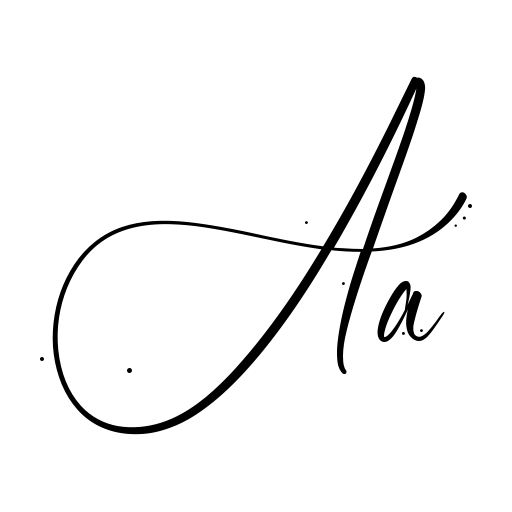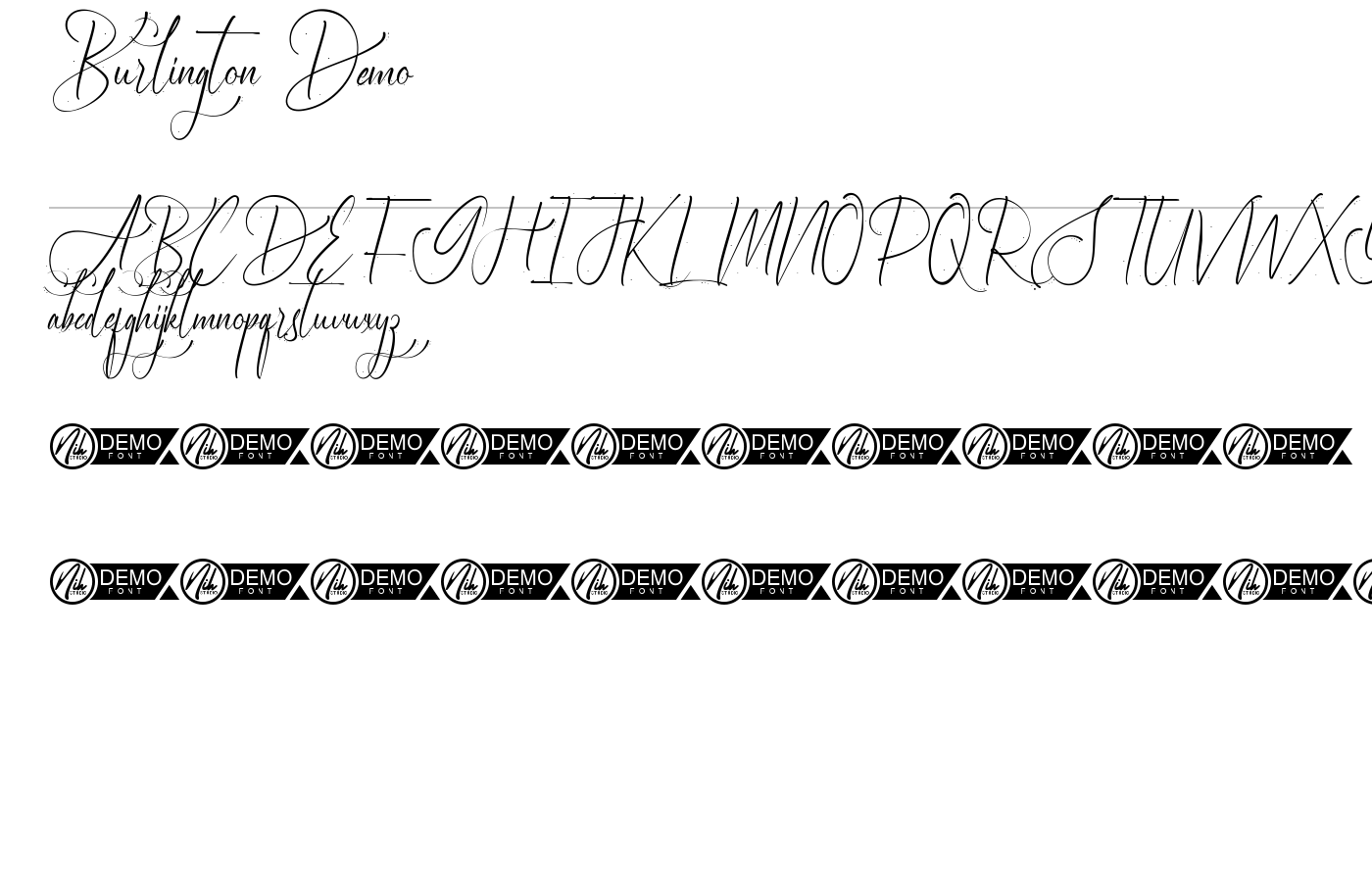
Burlington Demo is an elegant script font with delicate, flowing strokes that convey a refined and sophisticated feel. Its thin, calligraphic letterforms and graceful swashes make it ideal for luxury branding, wedding invitations, and stylish logos. This font adds a touch of charm and exclusivity to any design that requires a personal, artisanal touch.
Burlington Demo Font
About Burlington Demo Font
| Font family | Burlington Demo Font |